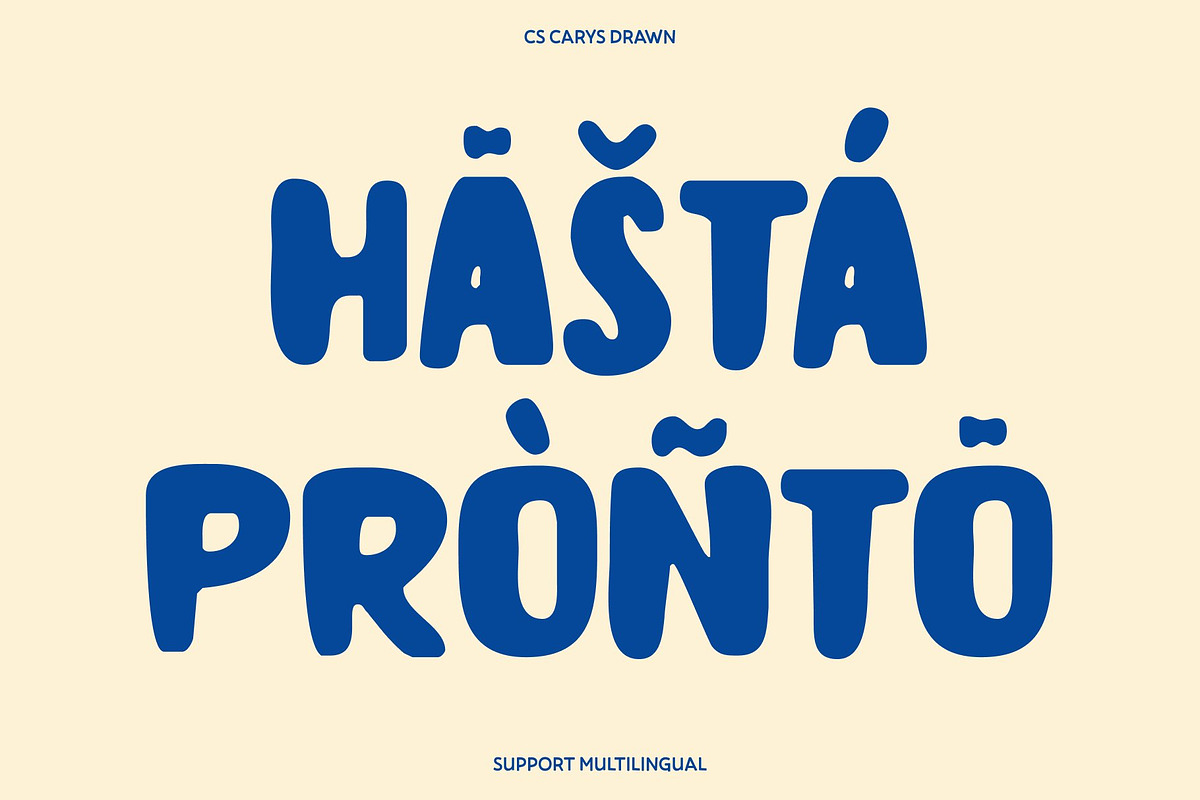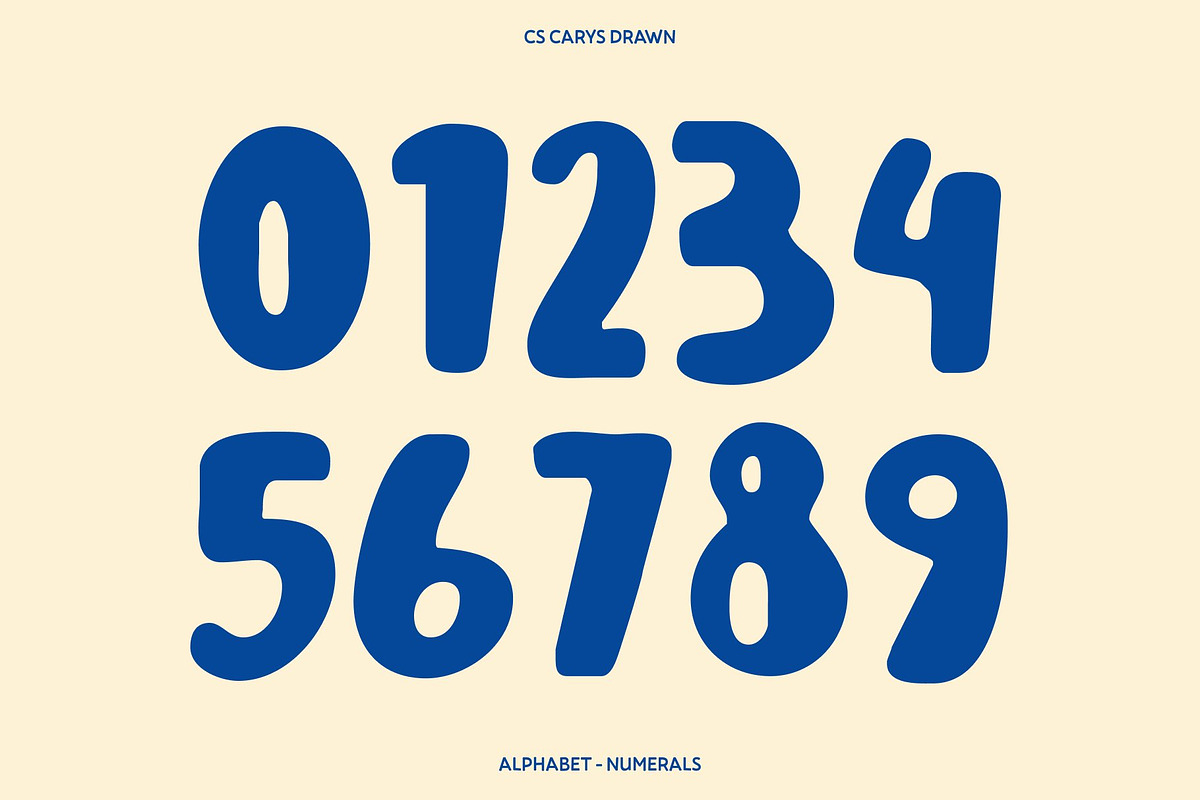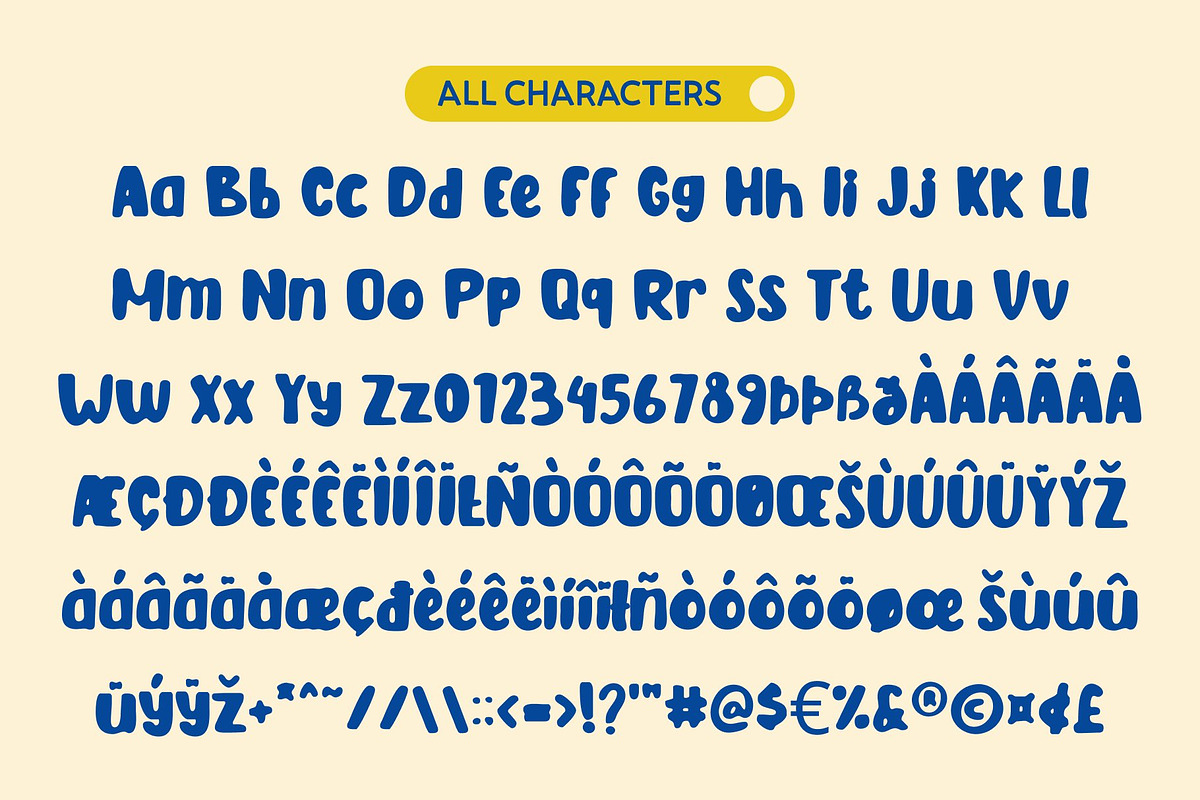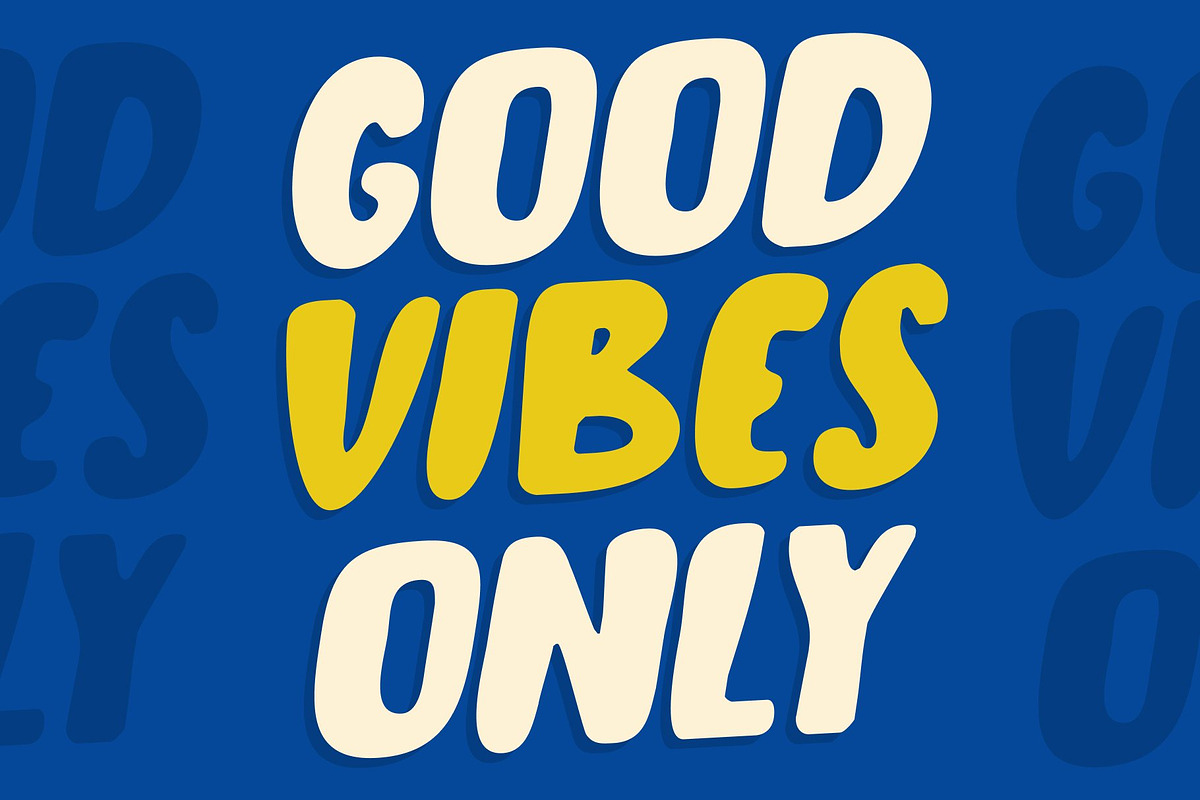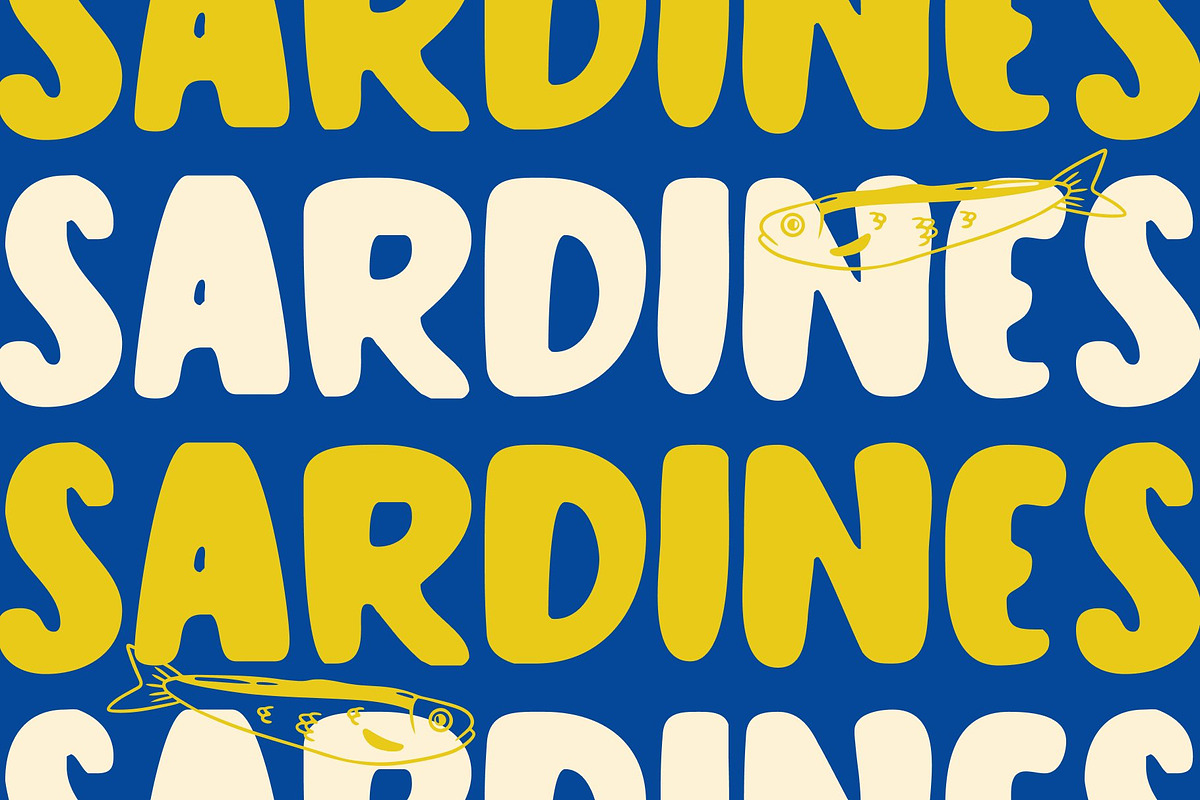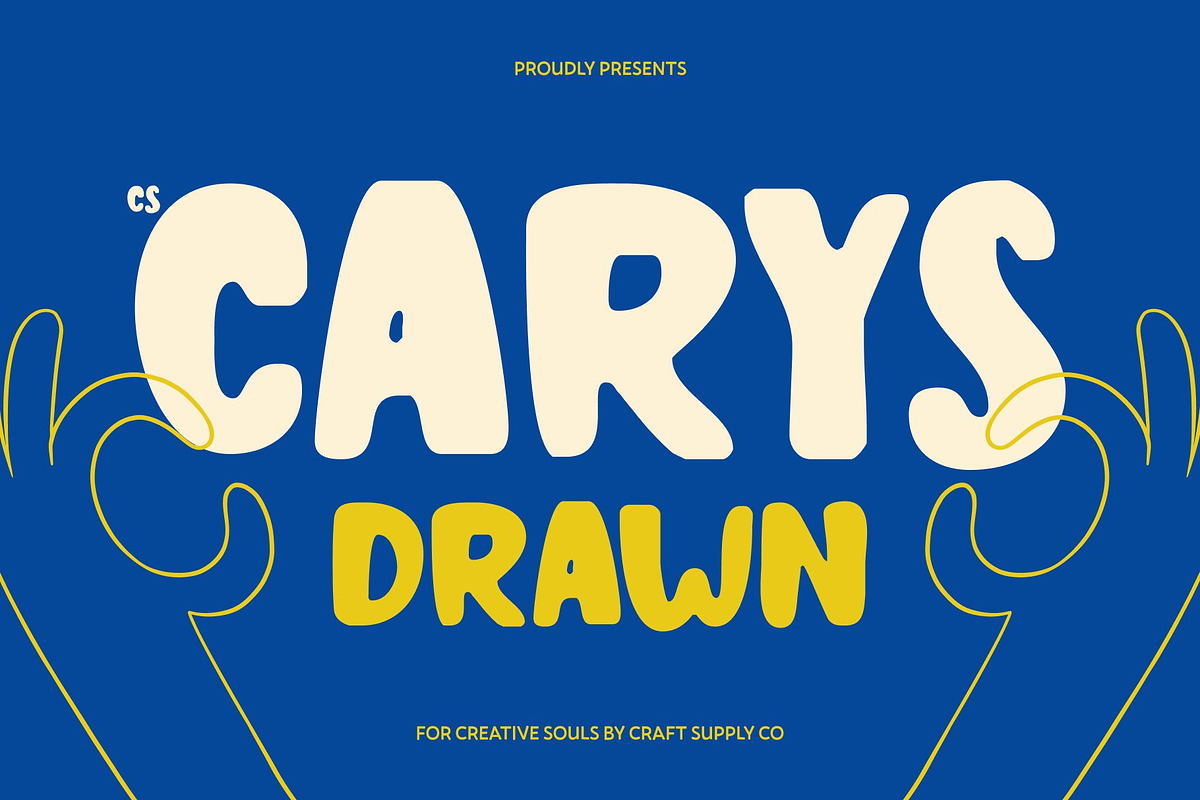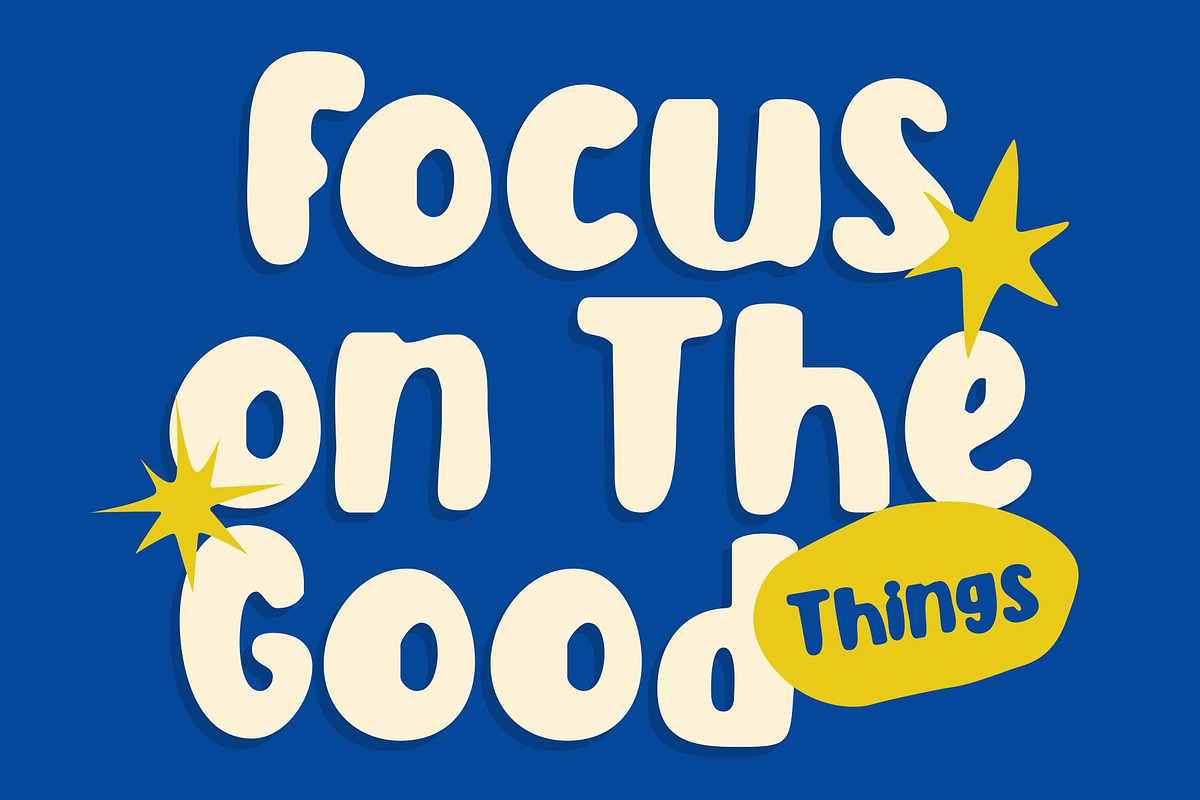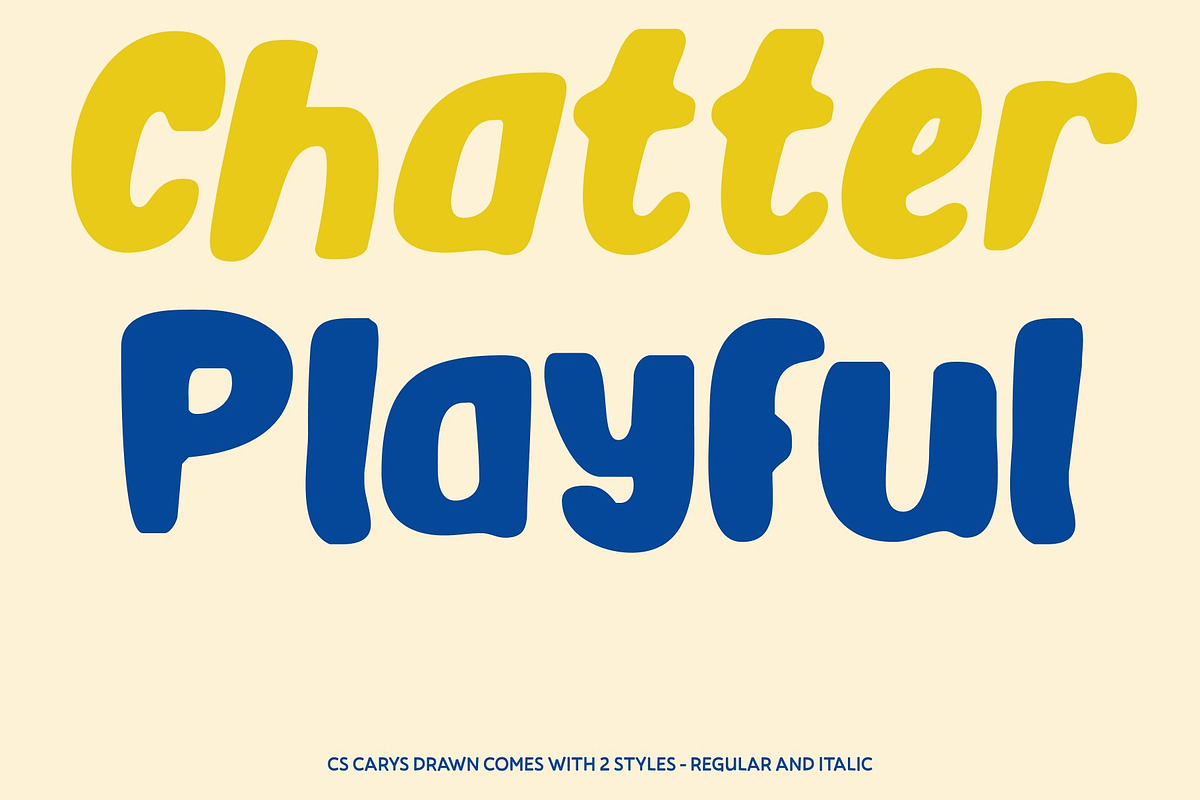
CS Carys Drawn
CS Carys Drawn – Playful Energy in Every Stroke
Vibrant Personality for Youthful Designs This is a playful display font bursting with fun, creativity, and youthful spirit. Its bold strokes and friendly shapes give each letter an energetic presence, making the typography feel lively and expressive. Designed to radiate joy and confidence, this font is perfect for projects that want to feel cheerful, modern, and full of character.
Rounded Shapes with a Cheerful Impression Featuring smooth, rounded forms and soft curves, this font creates a welcoming and approachable visual tone. The hand-drawn texture enhances its natural charm, adding warmth and authenticity to every letter. This balance of softness and strength ensures clarity while delivering a bright, happy impression that instantly connects with audiences.
Versatile for Fun Branding and Creative Concepts This font adapts effortlessly across a wide range of creative uses. From playful logos and packaging to posters, greeting cards, and children’s materials, it maintains strong readability while injecting personality into every design. Its bold yet friendly construction makes it both practical and visually engaging.
Perfect for Modern and Joyful Communication More than just a font, This font acts as a joyful visual voice. Ideal for youth branding, digital promotions, social media, and expressive layouts, it transforms simple text into lively, memorable statements. This font is a perfect choice for designers seeking bold fun with a warm, friendly touch.